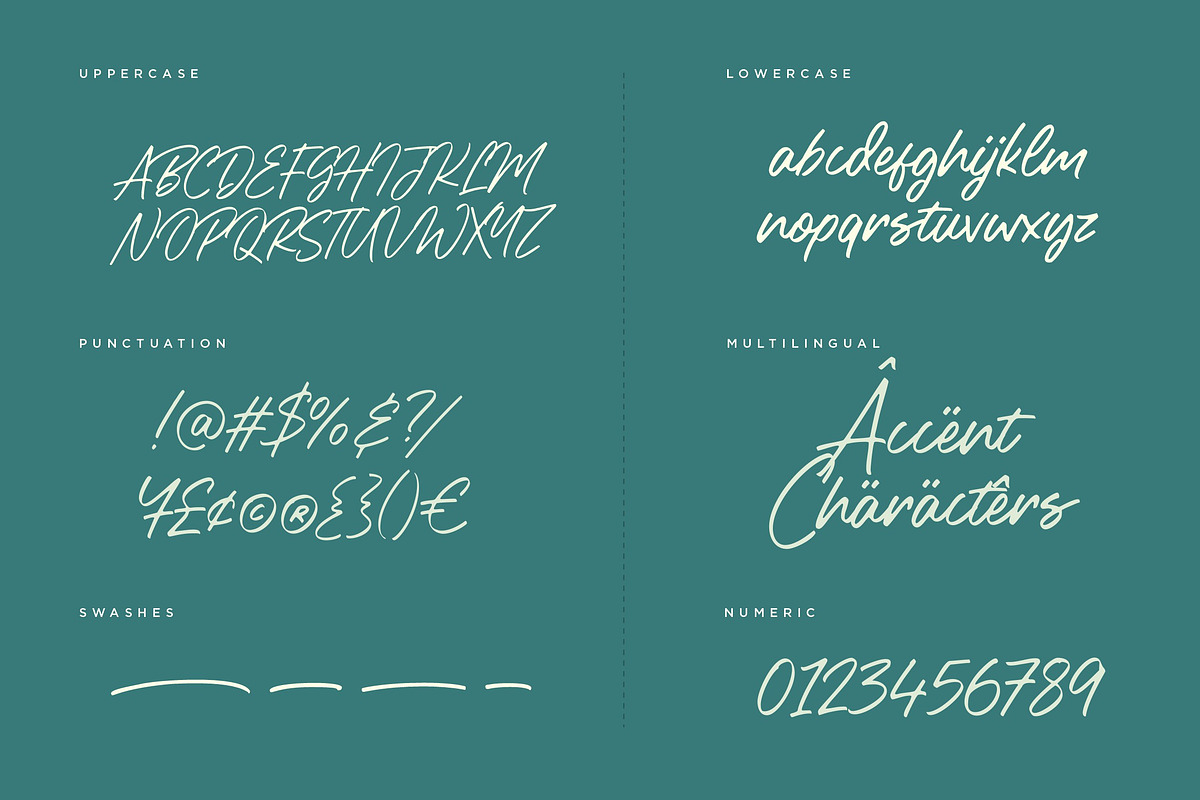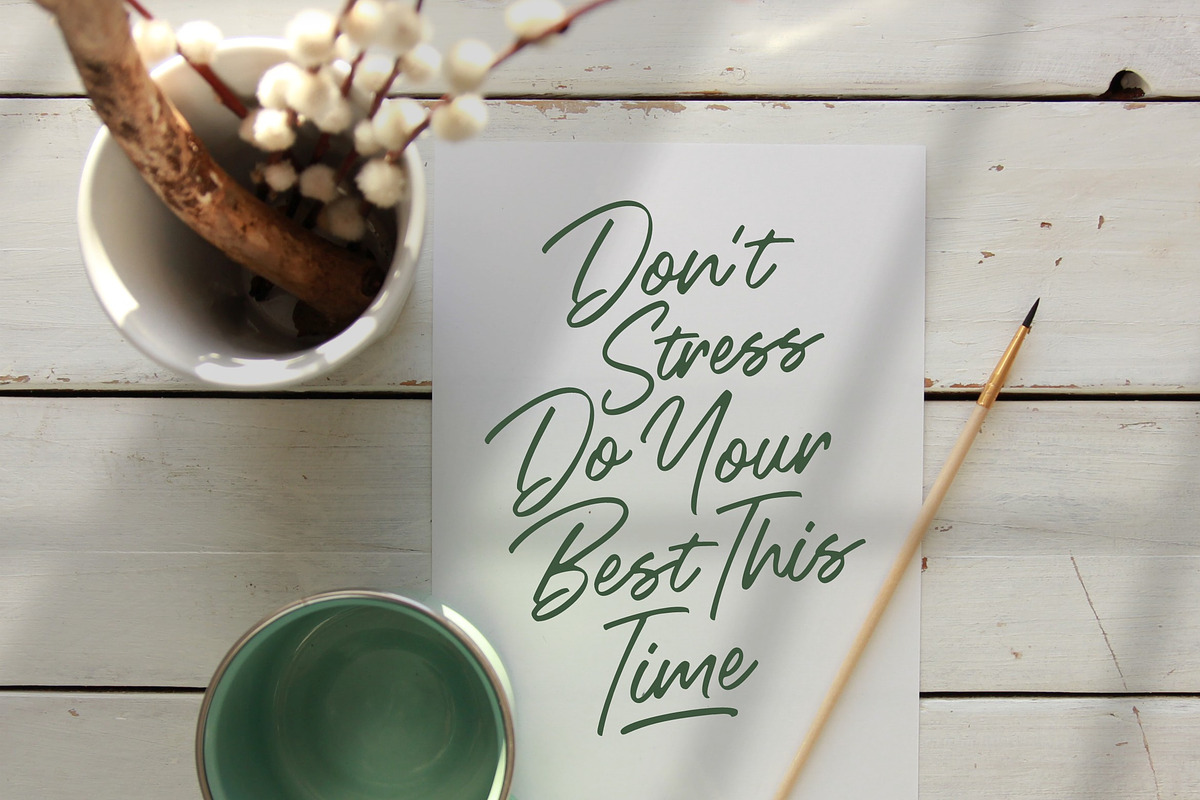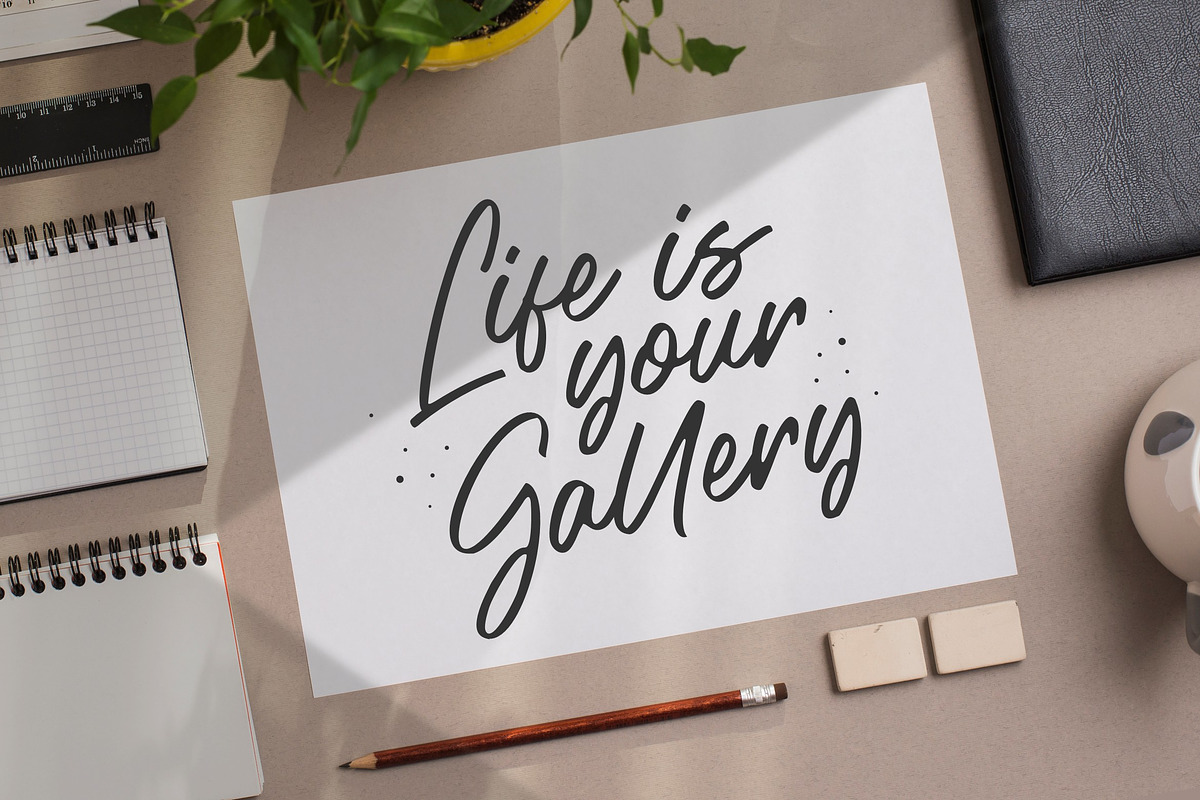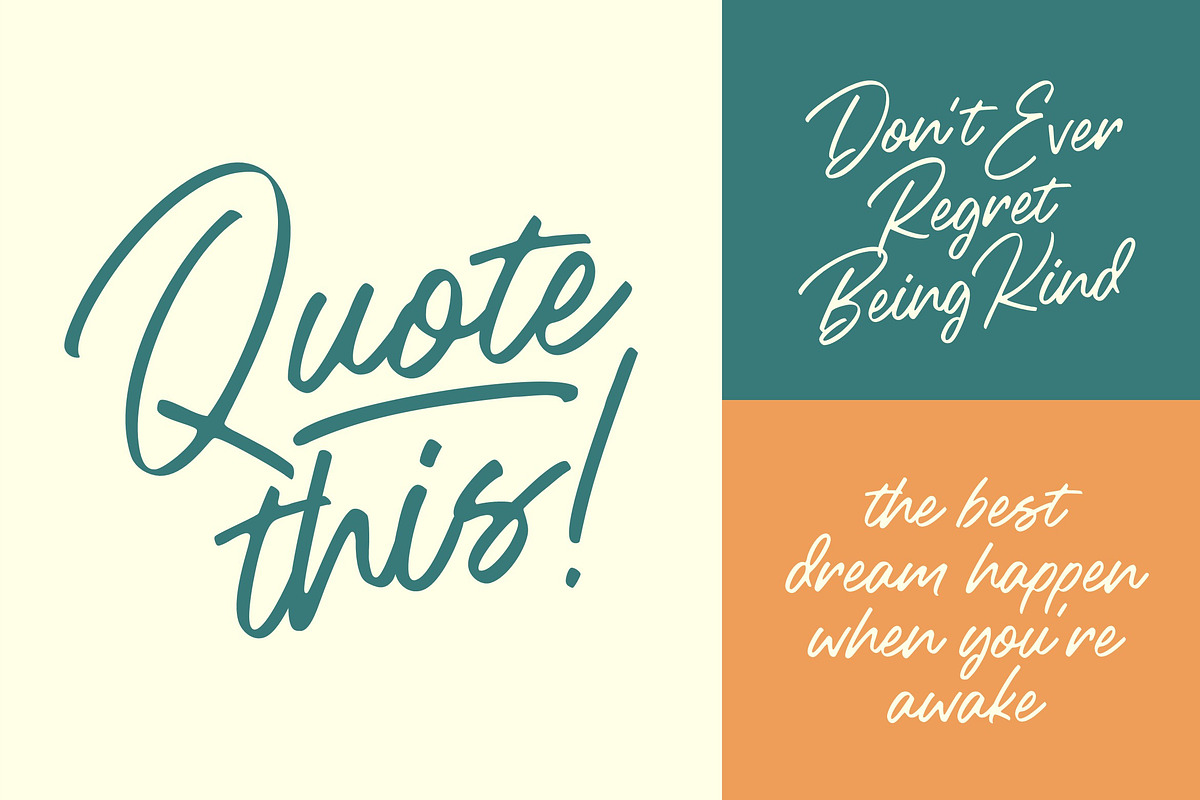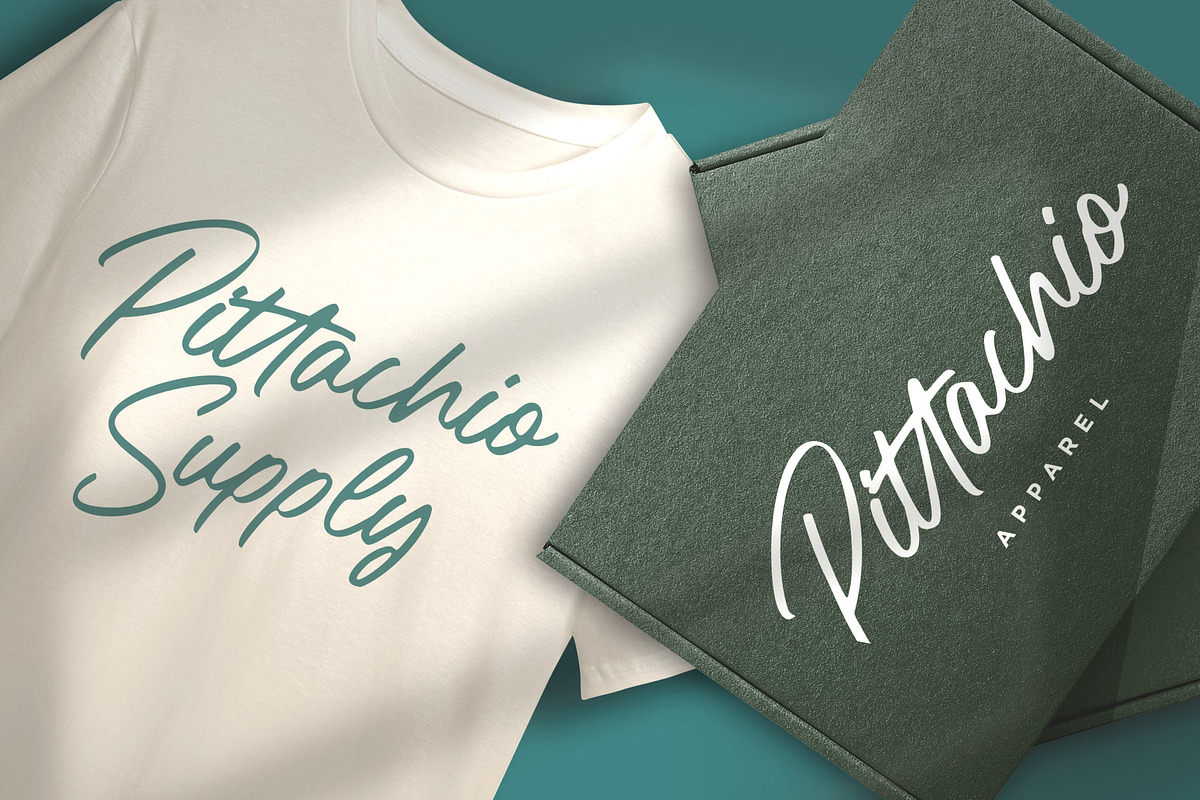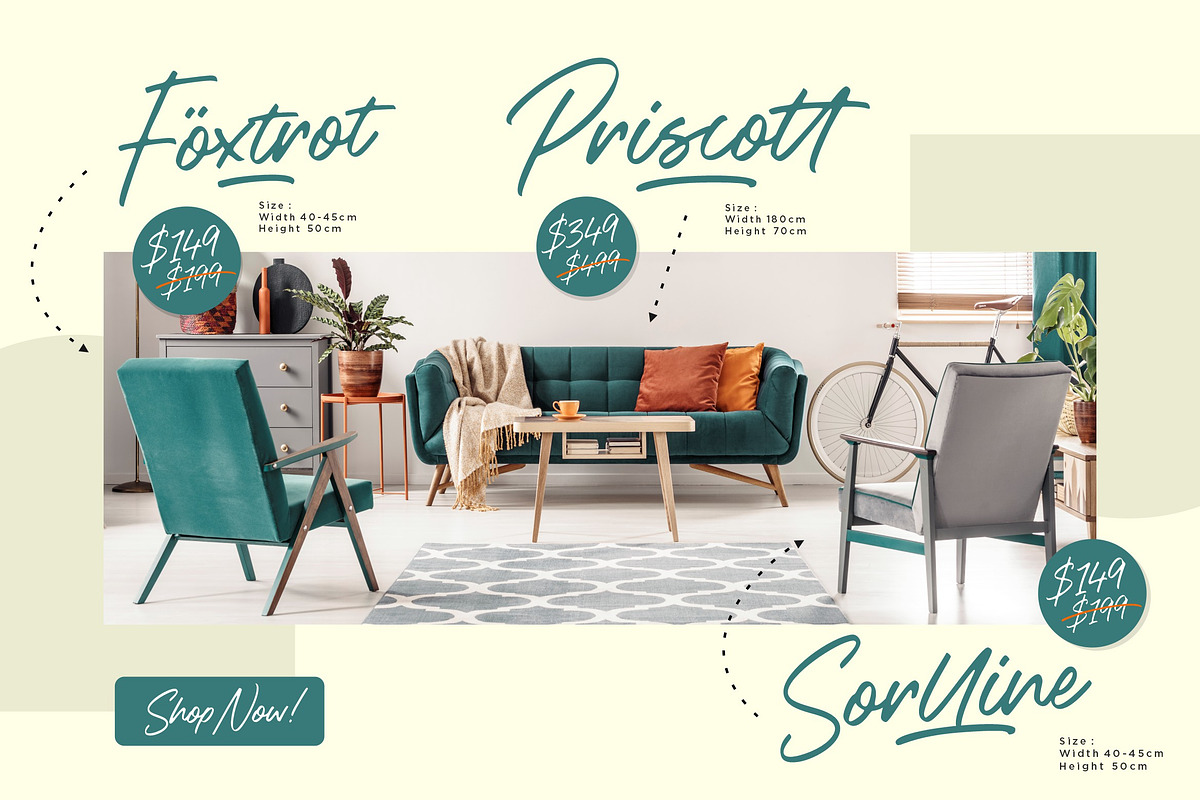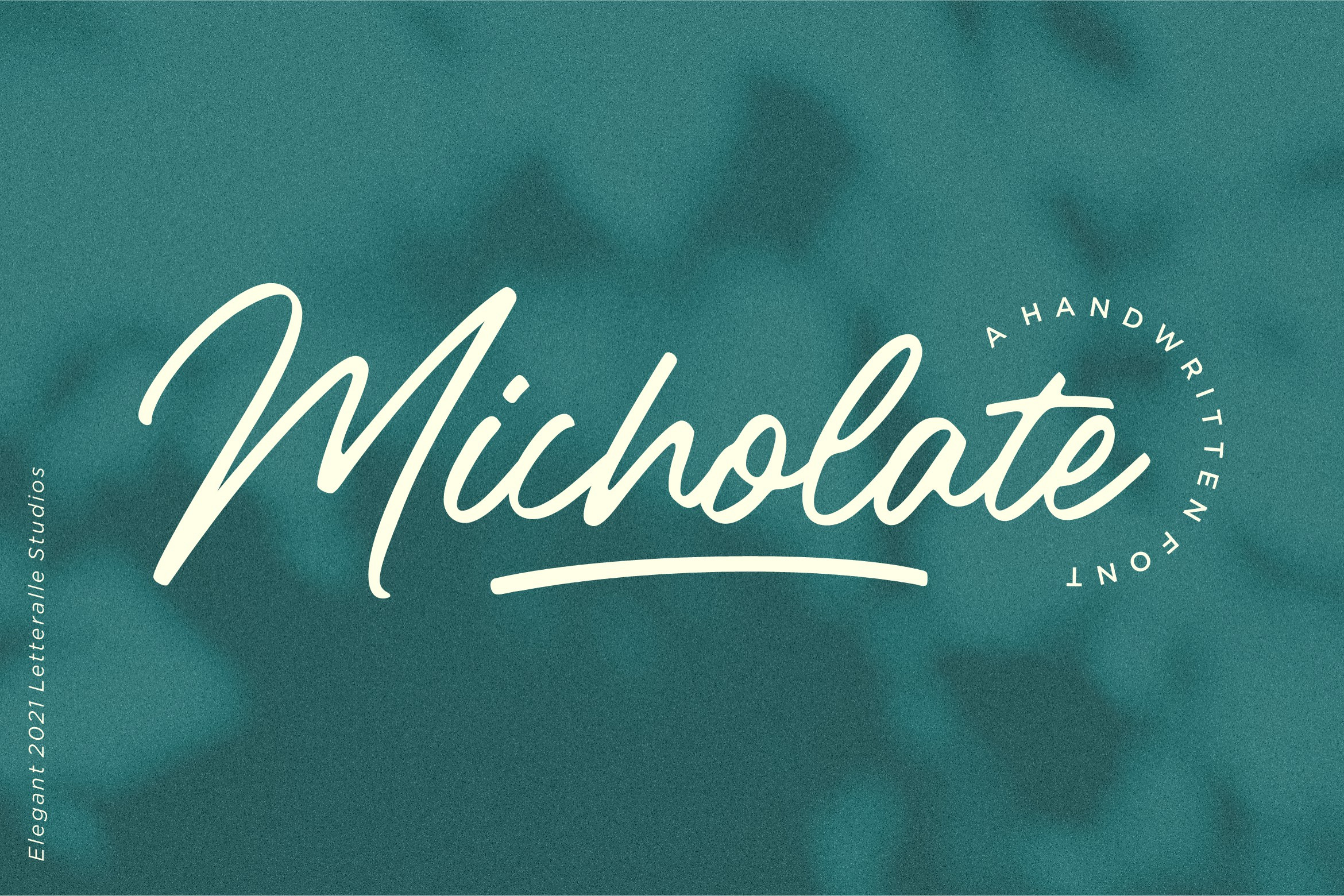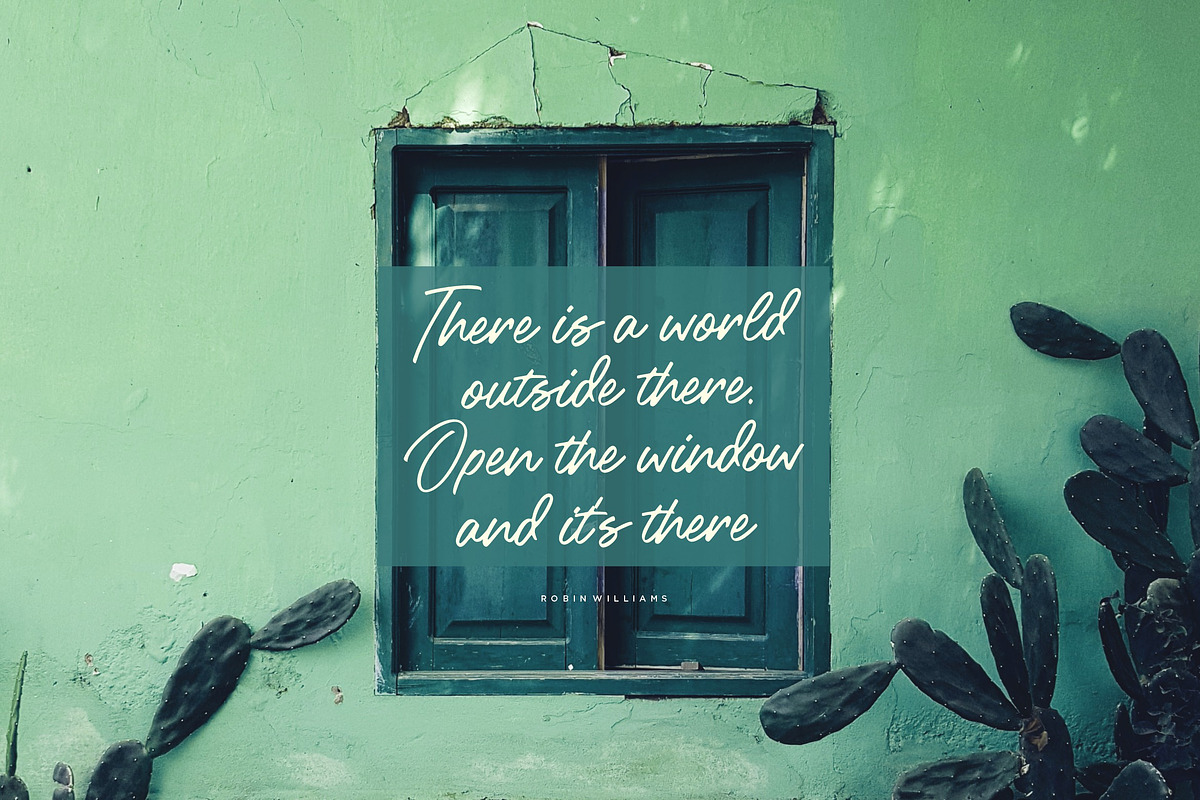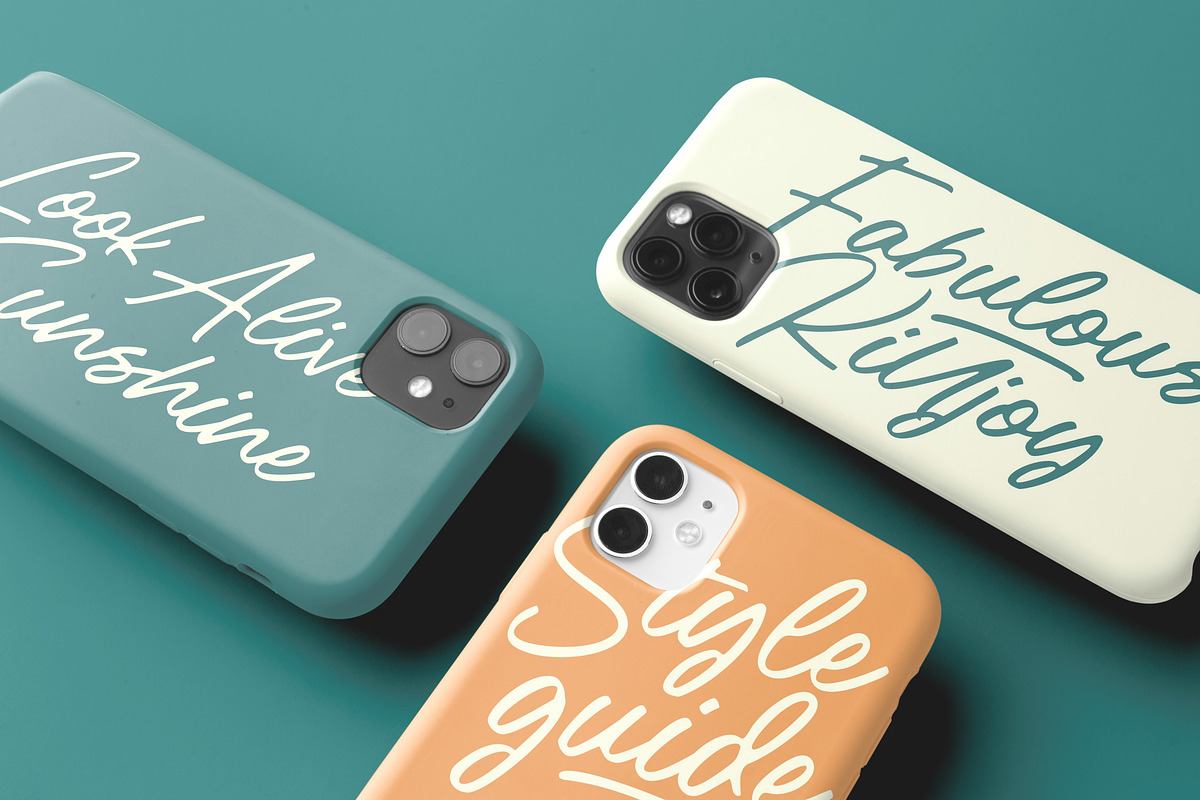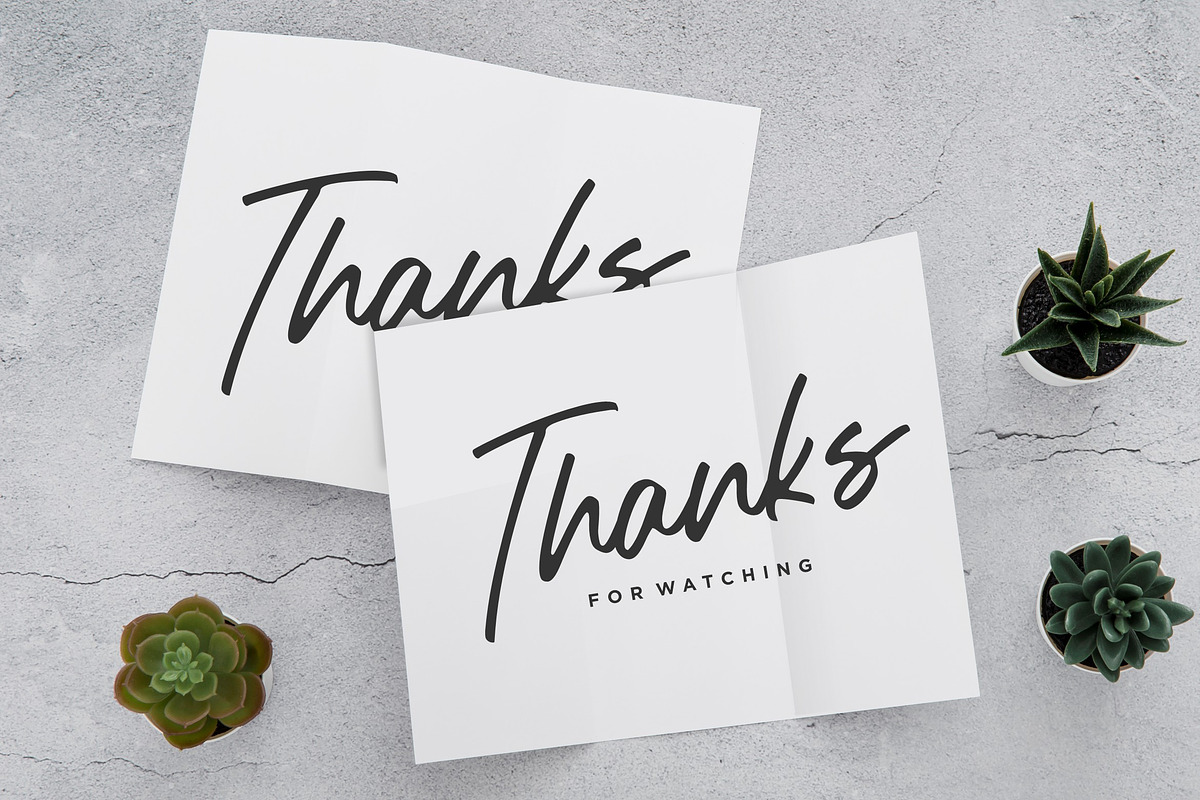
Introducing Micholate Font!
Micholate is elegant and warm handwritten font. This font is suitable for handwriting logos, T-shirts, merchandise, quotes, social media posts, advertising, and a lot more!
Micholate comes with an accent language and ligatures.
access swashes : _1 to _4